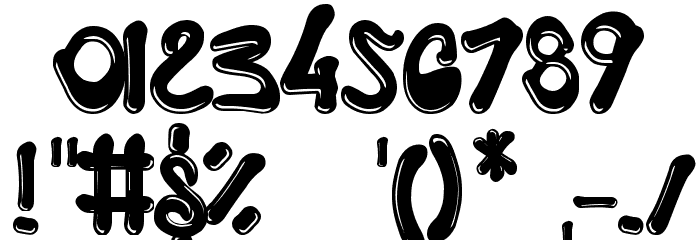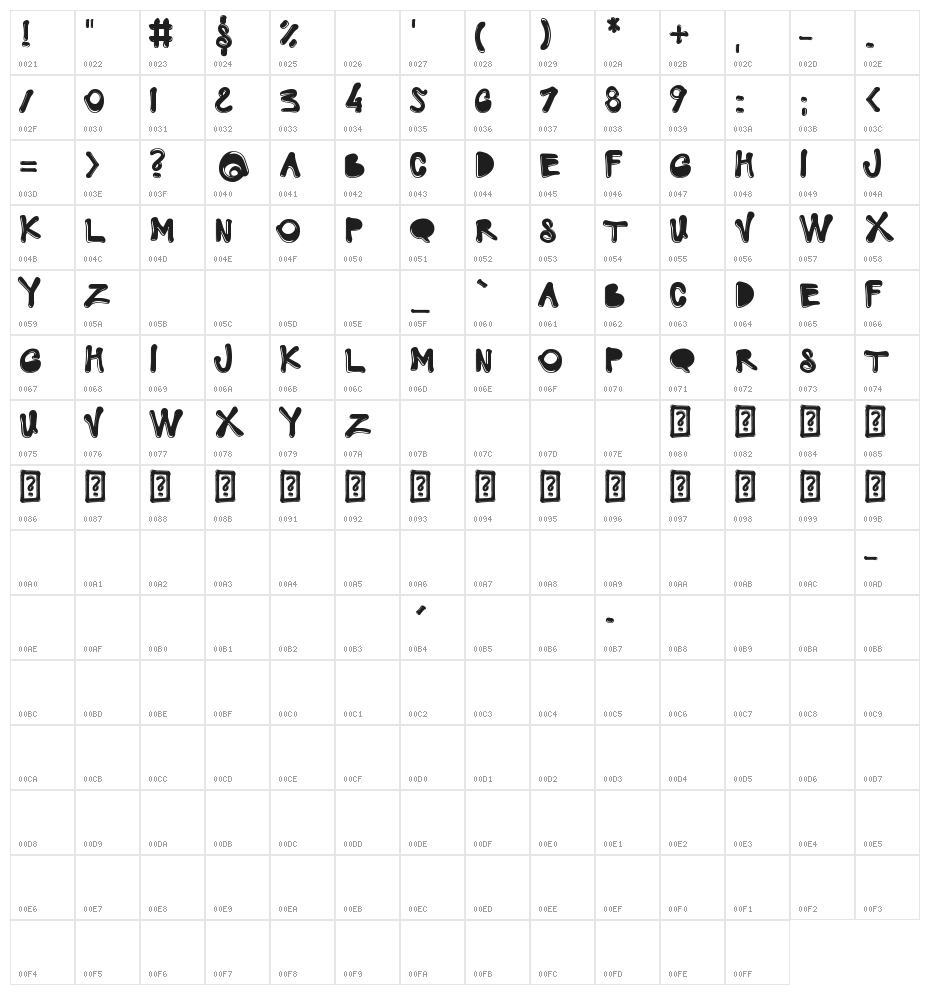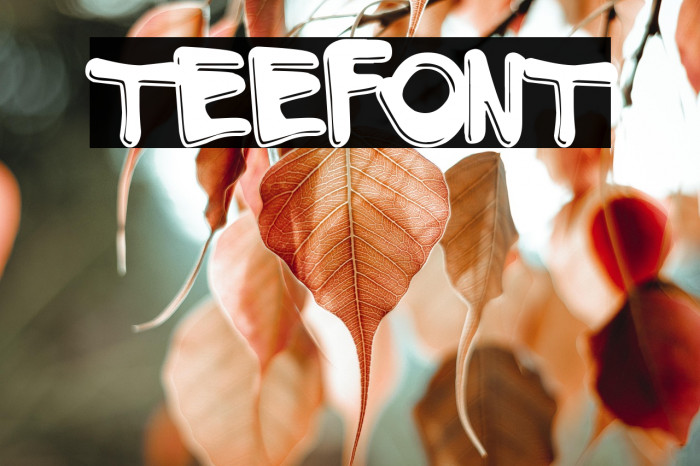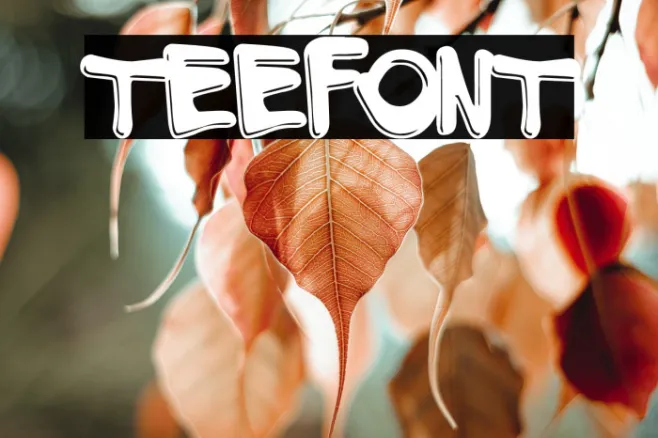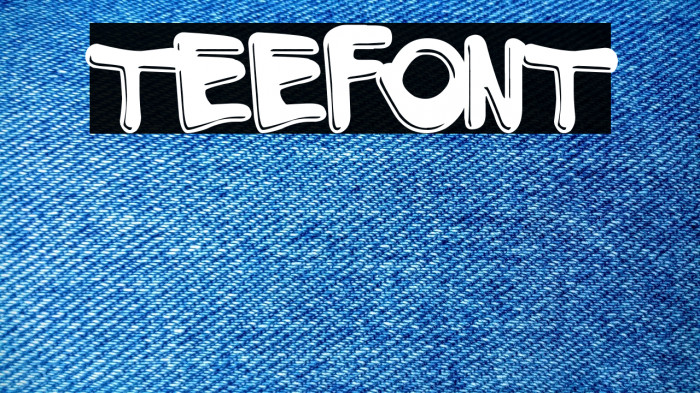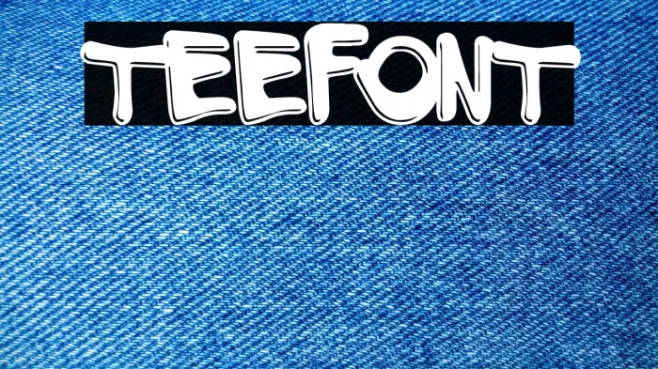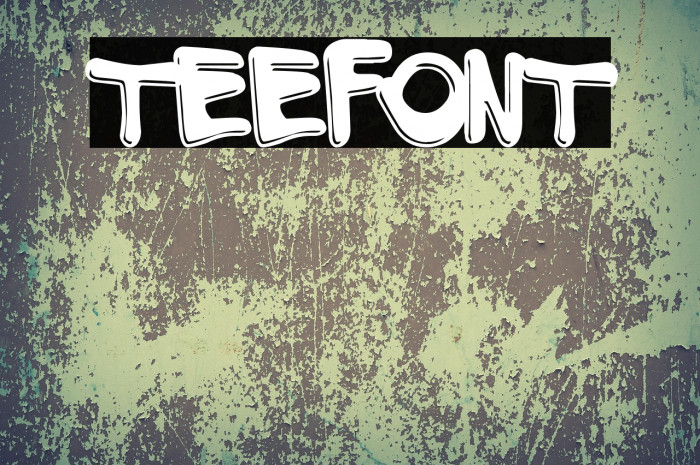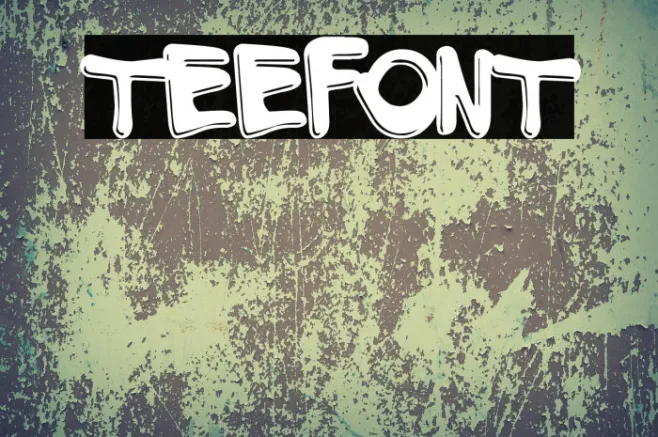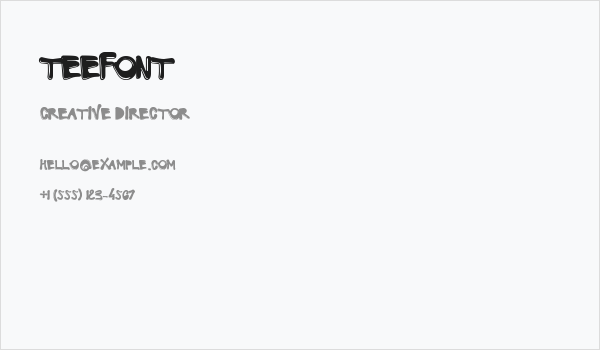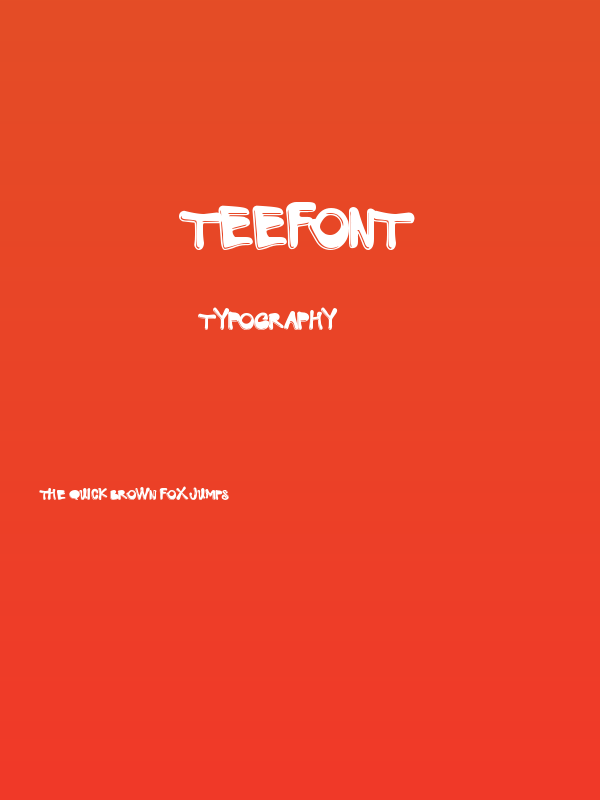
teefont Font
teefont Description
This font features a bold, playful style with a cartoonish flair. The letters are thick and rounded, with a slight shadow effect that gives them a three-dimensional appearance. The uppercase and lowercase letters maintain a consistent style, with exaggerated curves and a whimsical touch. Numbers and special characters follow the same design, ensuring a cohesive look across all elements. The overall appearance is eye-catching and fun, making it suitable for creative and informal projects.
| Overall Style | Playful, Cartoonish |
| Proposed Projects | Ideal for children's books, comic strips, playful branding, and party invitations. |